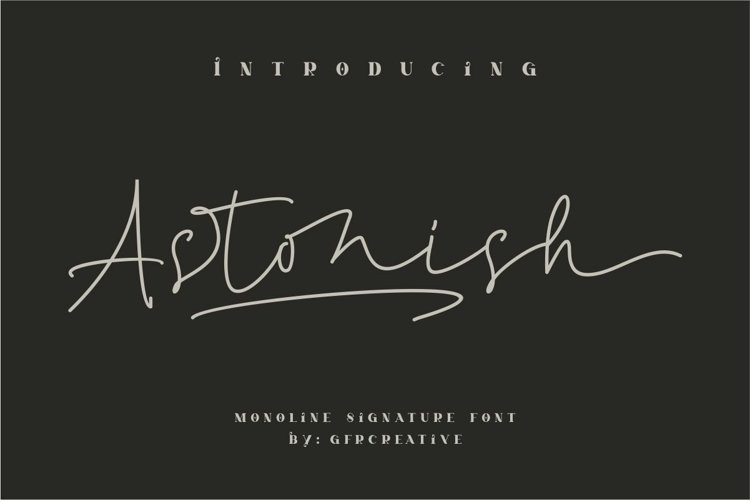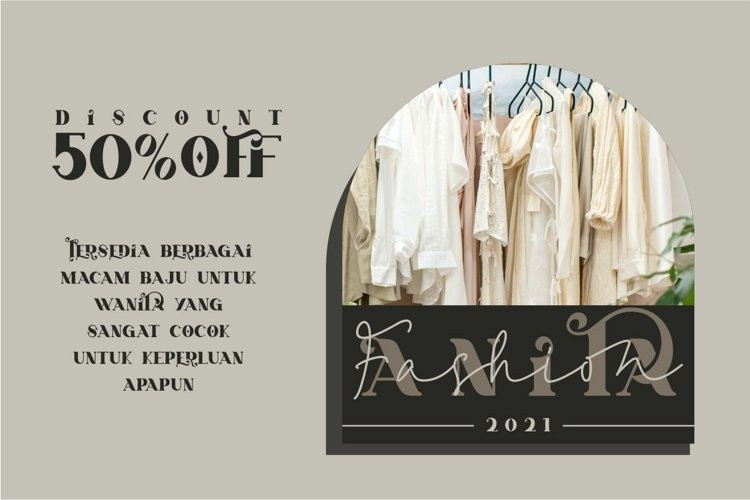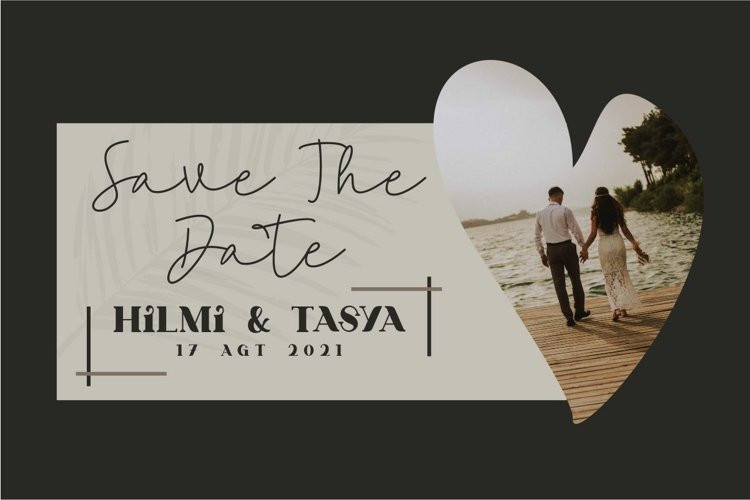
Astonish Font
Astonish is a monoline script font that comes with style and character.
A great font to use in many ways for your latest project.
Perfect for logos & branding, photography, invitations, watermarks, advertising, product design, stationery, wedding designs, labels, product packaging, special events, or anything else that requires handwritten content.
Also available for punctuation, numbers, end letters with tails, and extensive language support